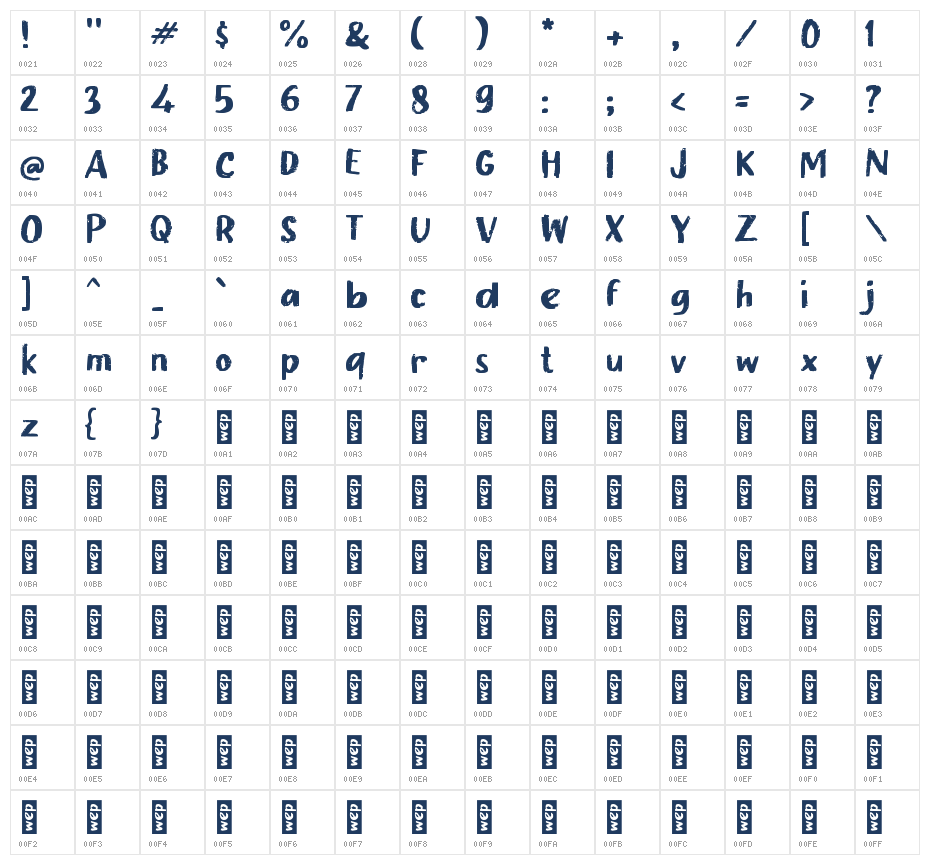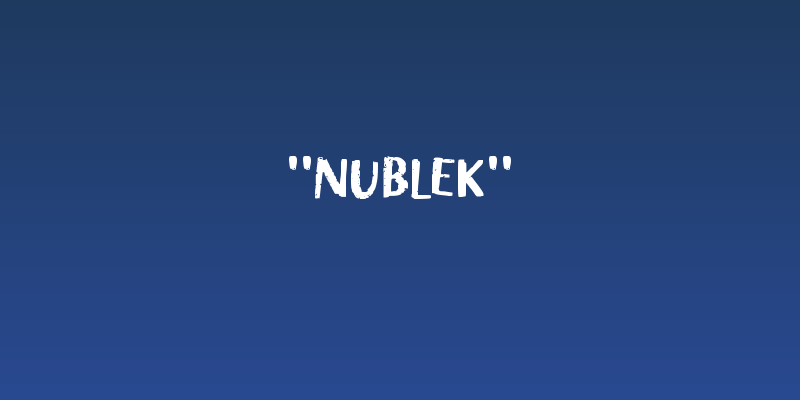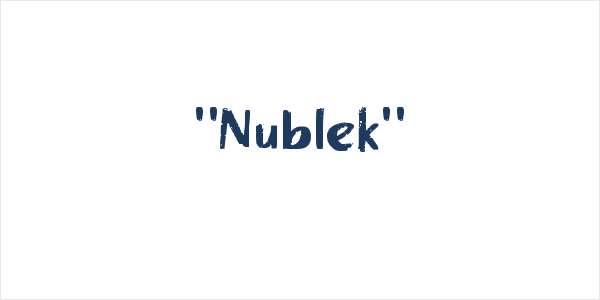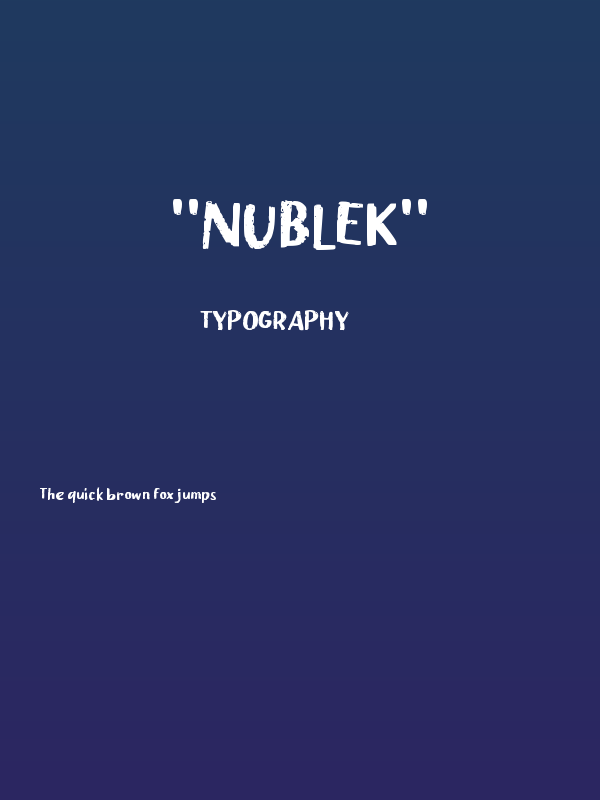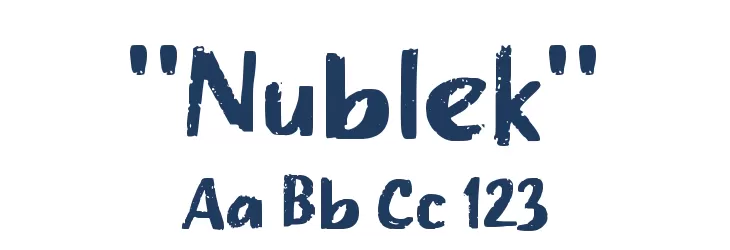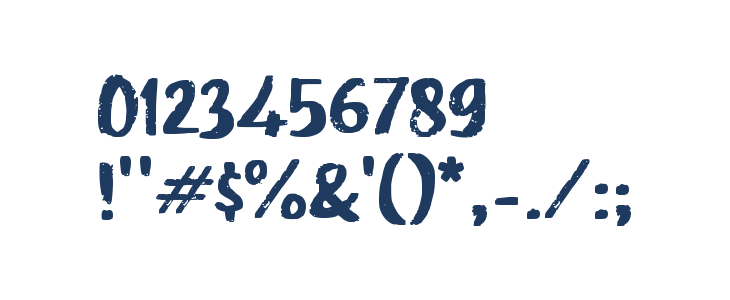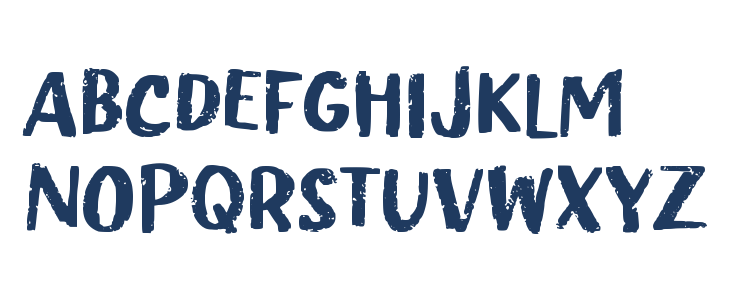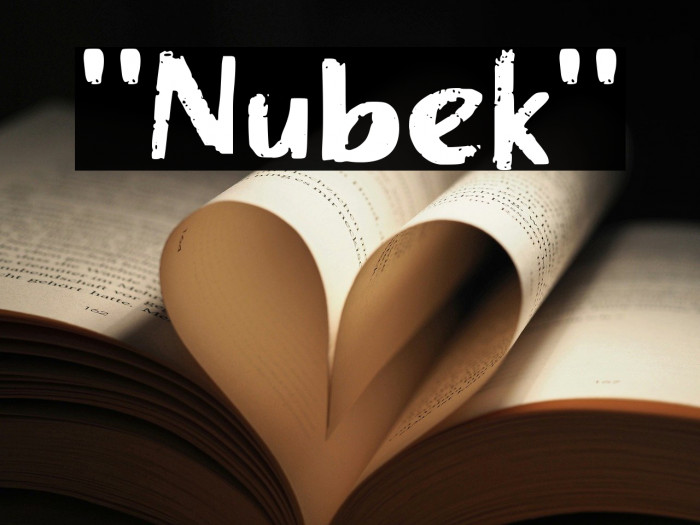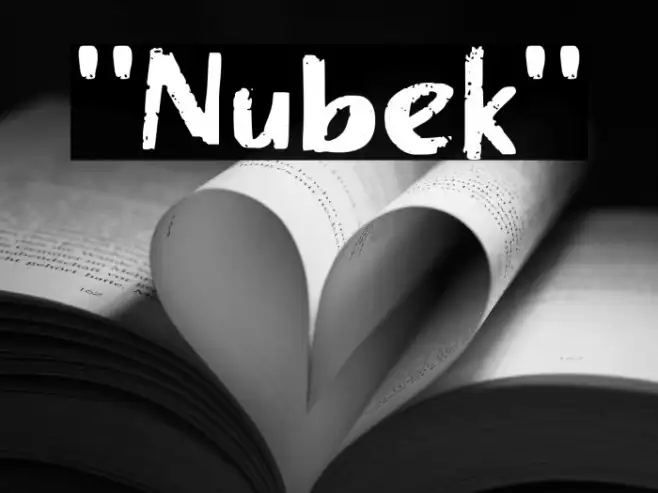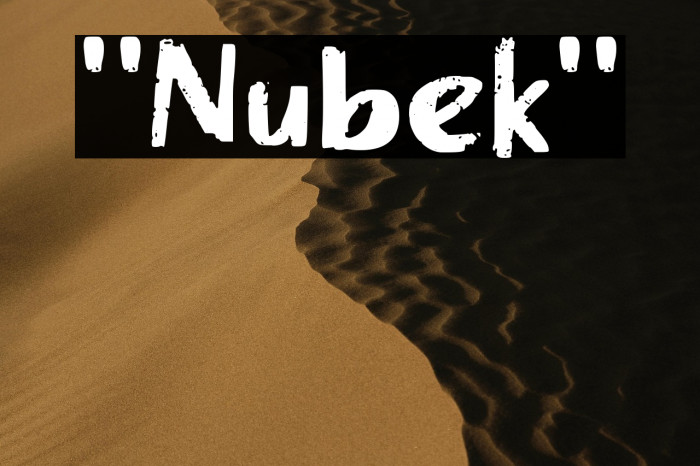
"Nublek" Font
"Nublek" Description
A distressed, textured sans-serif font with a casual, handwritten style.
| Overall Style | Casual, Handwritten, Textured |
| Use Case | Headlines, Posters, Creative branding |